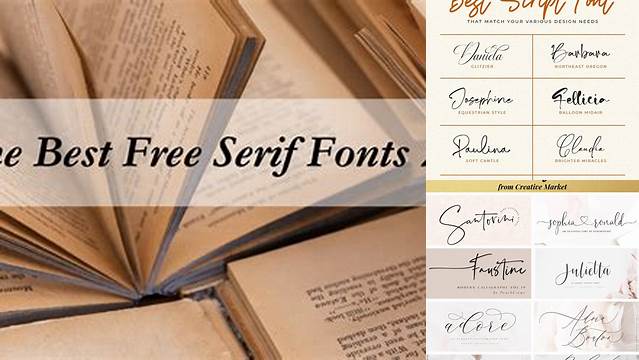
Best Script Fonts: Elevate Your Designs
Introduction to Script Fonts
Hey guys! Let's dive into the world of script fonts. You know, those beautiful, flowing fonts that mimic handwriting? They're super popular for adding a touch of elegance, personality, and uniqueness to various designs. Whether you're working on wedding invitations, logos, branding materials, or even just sprucing up your personal projects, choosing the right script font can make all the difference. Script fonts aren't just about looking pretty; they're about conveying a mood, a style, and a message. A well-chosen script font can instantly elevate your design, making it feel more personal and handcrafted. Think about how a swirling, calligraphic font can add a touch of romance to a wedding invite, or how a bold, brush-style script can make a logo feel more dynamic and modern. But here's the thing: not all script fonts are created equal. There's a vast range out there, from formal and traditional to playful and quirky, and picking the perfect one for your project can feel like navigating a maze. That’s why we’re here to guide you through the best script fonts available, helping you understand their nuances and how to use them effectively. We'll explore different types of script fonts, discuss their best uses, and give you some insider tips on pairing them with other fonts to create stunning designs. So, if you've ever wondered how to choose the right script font to make your design pop, you're in the right place. Let's get started and unlock the potential of these fantastic fonts!
Types of Script Fonts
Okay, so let's break down the different types of script fonts, because it's not just one big category, you know? There are several distinct styles, each with its own vibe and best-use cases. Understanding these categories will seriously help you narrow down your choices and pick the perfect script font for your project. First up, we have calligraphic scripts. These are the elegant ones, inspired by traditional handwriting and calligraphy. Think of beautiful, flowing strokes, delicate curves, and a formal feel. These fonts are fantastic for wedding invitations, certificates, and anything that needs a touch of classic sophistication. Then, there are brush scripts. These fonts mimic the look of brushstrokes, giving them a more organic and hand-painted feel. They often have a more dynamic and energetic vibe, making them great for logos, posters, and designs that need a bit of a modern edge. Next, we've got connected scripts. These are your classic script fonts where the letters join up, just like cursive handwriting. They can be formal or informal, depending on the specific style, and are super versatile for a wide range of projects. On the other hand, disconnected scripts are where the letters don't connect. This can give the font a more contemporary and clean look, making them a good option for designs that need to be legible but still have a script feel. Lastly, we have casual scripts. These are the playful and relaxed script fonts, often with a handwritten or whimsical feel. They're perfect for projects that need a friendly and approachable touch, like children's books, greeting cards, and informal branding. Knowing these different types is half the battle. When you understand the characteristics of each category, you can start to match the font to the mood and message of your design. So, next time you're browsing script fonts, think about these categories, and you'll be one step closer to finding the perfect fit.
Top Script Font Choices
Alright, guys, let's get into the fun part: the top script font choices that you absolutely need to know about! We've scoured the font universe to bring you a curated list of script fonts that are not only beautiful but also super versatile and practical for a wide range of projects. First up, we have Brush Script MT. This is a classic for a reason! It’s a bold, flowing script that's perfect for adding a touch of retro flair to your designs. Think vintage posters, logos, and eye-catching headlines. Next, let’s talk about Pacifico. This font is like a breath of fresh air – it’s a casual, beachy script that’s perfect for adding a friendly and relaxed vibe. Use it for websites, social media graphics, or anything that needs a touch of fun. If you're after something more elegant and refined, Great Vibes is your go-to. This font is a gorgeous, flowing script that’s ideal for wedding invitations, formal events, and anything that needs a touch of sophistication. For a modern and stylish look, check out Playlist Script. It’s a hand-drawn brush script that’s perfect for logos, branding, and designs that need a contemporary edge. Another fantastic option is Lobster. This bold, condensed script is super eye-catching and perfect for headlines, posters, and anything that needs to make a statement. It’s got a vintage feel but still feels fresh and modern. If you’re looking for something a bit more unique, consider Billion Dreams. This font has a playful and whimsical feel, making it perfect for children's books, greeting cards, and designs that need a touch of fun. And last but not least, we have Shelly Script. This elegant and flowing script is perfect for adding a touch of romance and sophistication to your designs. It’s ideal for wedding invitations, stationery, and anything that needs a delicate touch. These are just a few of the amazing script fonts out there, but they're a great starting point. Each one has its own personality and charm, so experiment with them and see how they can elevate your designs. Remember, the key is to choose a font that not only looks beautiful but also fits the overall mood and message of your project.
How to Pair Script Fonts
Okay, so you've picked out an awesome script font, but now what? Pairing script fonts with other fonts can be a bit tricky, but don't worry, guys, we've got you covered! The key to successful font pairing is creating contrast while maintaining harmony. You want your fonts to complement each other, not clash. Think of it like putting together an outfit – you need the right balance of statement pieces and supporting elements. First off, let's talk about pairing script fonts with sans-serif fonts. This is a classic combination that works like a charm. Sans-serif fonts are clean and modern, providing a nice contrast to the flowing, elegant lines of script fonts. Think of using a bold sans-serif for headlines and a delicate script for subheadings or body text. This creates a visual hierarchy that's both pleasing and easy to read. Another great option is pairing script fonts with serif fonts. Serif fonts have those little “feet” or extensions at the ends of the strokes, which can add a touch of traditional elegance to your designs. When pairing scripts with serifs, try to choose a serif font that has a similar mood and weight to your script font. For example, a formal script might pair well with a classic serif like Times New Roman or Garamond, while a more casual script might look great with a slightly more playful serif like Playfair Display. One thing to avoid is pairing two script fonts together. This can often look cluttered and overwhelming, as the flowing lines of the scripts can compete with each other. Unless you're a font pairing pro, it's generally best to stick to one script font per design. Also, consider the weight and size of your fonts. You want to make sure that your fonts are balanced and easy to read. A good rule of thumb is to use a larger size for your headlines and a smaller size for your body text. This helps create a clear visual hierarchy and makes your design more accessible. Finally, don't be afraid to experiment! Font pairing is an art, not a science, so try out different combinations and see what works best for your project. Play around with different weights, sizes, and styles until you find a pairing that feels just right. With a little practice, you'll be a font pairing master in no time!
Best Uses for Script Fonts
So, where exactly do script fonts shine? Knowing the best uses for script fonts can seriously elevate your design game. These fonts aren't just pretty; they're powerful tools for conveying specific moods and messages. Let's dive into some scenarios where script fonts can truly make a difference. First and foremost, script fonts are a go-to for wedding invitations and stationery. The elegant, flowing lines of a script font can add a touch of romance and sophistication, setting the tone for a special occasion. Think delicate calligraphy for the names and dates, paired with a clean serif or sans-serif for the details. It's a classic combination that never fails to impress. Next up, script fonts are fantastic for logos and branding. A well-chosen script font can give your brand a unique personality, whether you're aiming for a classic, modern, or whimsical vibe. Brush scripts are particularly popular for logos, as they have a hand-drawn feel that can make your brand seem more authentic and approachable. Just make sure your script font is legible at smaller sizes, as logos often need to be scaled down. Script fonts are also a great choice for headlines and titles. A bold, eye-catching script can instantly grab attention and add a touch of flair to your designs. However, it's important to use script fonts sparingly in headlines, as too much script can become overwhelming. Pair a script headline with a clean, simple body font for maximum impact. For social media graphics and online content, script fonts can add a personal touch that helps your content stand out. Use them for quotes, announcements, or any other content that needs a bit of personality. Again, legibility is key, so make sure your script font is easy to read on screens. Another great use for script fonts is in greeting cards and personalized gifts. Whether you're creating a birthday card, a thank-you note, or a custom mug, a script font can add a heartfelt touch that makes your gift feel extra special. Finally, script fonts can be perfect for adding a decorative element to your designs. Use them for flourishes, swashes, or other ornamental details to add a touch of elegance and visual interest. Just remember to use them sparingly, as too many decorative elements can clutter your design. In a nutshell, script fonts are incredibly versatile and can be used in a wide range of projects. The key is to choose the right script font for the occasion and to use it in a way that enhances your overall design.
Okay, guys, let's talk about some common mistakes to avoid when working with script fonts. We all make mistakes, but knowing what to watch out for can save you a lot of design headaches down the road. Script fonts are beautiful, but they can be a bit tricky to work with if you're not careful. One of the biggest mistakes is overusing script fonts. As much as we love them, script fonts are best used sparingly. Think of them as a special ingredient that adds flavor to your design – too much, and it can become overwhelming. Stick to using script fonts for headlines, titles, or other key elements, and pair them with a clean, simple font for body text. Another common mistake is choosing a script font that's hard to read. Legibility is crucial, especially when it comes to body text or important information. Some script fonts have elaborate swirls and flourishes that can make them difficult to decipher, particularly at smaller sizes. Always make sure your script font is easy to read, even if it means sacrificing a bit of style. Pairing script fonts with the wrong fonts is another pitfall to avoid. As we discussed earlier, the key to successful font pairing is creating contrast while maintaining harmony. Pairing a script font with a similar-looking font can create a cluttered and confusing design. Stick to pairing scripts with sans-serif or serif fonts that offer a nice contrast. Ignoring the context of your project is another mistake to watch out for. The right script font can set the tone for your design, but the wrong one can send the wrong message. A formal script might be perfect for a wedding invitation but totally inappropriate for a children's book. Always consider the mood and message of your project when choosing a script font. Using too many different fonts in one design is a big no-no. A good rule of thumb is to stick to a maximum of two or three fonts per project. Too many fonts can make your design look cluttered and unprofessional. Choose a script font and one or two complementary fonts, and stick with those throughout your design. Finally, failing to test your fonts across different platforms and devices is a mistake that can lead to unpleasant surprises. Fonts can render differently on different screens, so it's always a good idea to test your design on various devices to make sure your fonts look the way you intended. By avoiding these common mistakes, you'll be well on your way to using script fonts effectively and creating stunning designs that truly shine. Keep these tips in mind, and you'll be a script font pro in no time!
So, guys, we've reached the end of our deep dive into the wonderful world of script fonts! Hopefully, you've gained a solid understanding of what makes these fonts so special and how to use them effectively in your designs. We've explored the different types of script fonts, from elegant calligraphic scripts to playful casual scripts, and we've looked at some of the top script font choices that you absolutely need to know about. We've also discussed the art of pairing script fonts with other fonts, giving you some valuable tips on how to create harmonious and visually appealing designs. And, of course, we've covered the best uses for script fonts, helping you understand when and where these fonts can truly shine. But perhaps most importantly, we've talked about the common mistakes to avoid when working with script fonts, so you can steer clear of those design pitfalls and create stunning results. Remember, script fonts are powerful tools for conveying mood, personality, and style. They can add a touch of elegance, romance, or whimsy to your designs, making them perfect for a wide range of projects, from wedding invitations to logos to social media graphics. The key is to choose the right script font for the occasion and to use it in a way that enhances your overall design. Don't be afraid to experiment with different script fonts and font pairings. Play around with different weights, sizes, and styles until you find combinations that feel just right. And most importantly, have fun with it! Designing with script fonts should be an enjoyable process, so let your creativity flow and see what amazing things you can create. With the knowledge and tips you've gained from this guide, you're well-equipped to start using script fonts like a pro. So go ahead, dive in, and let your designs shine with the beauty and charm of script fonts. Happy designing, everyone!